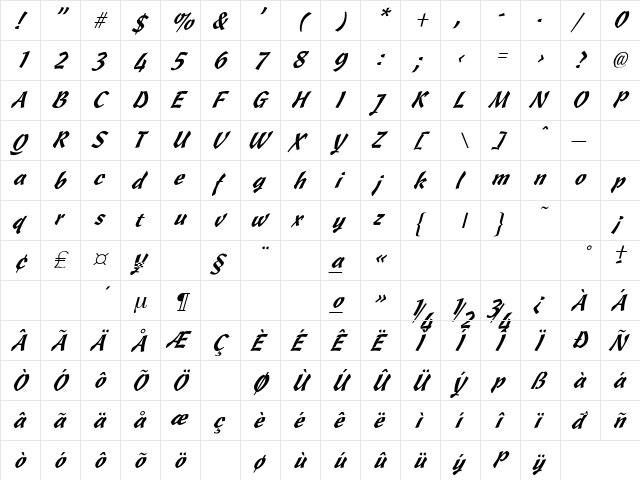
Wizzard Italic
Design Context for Wizzard Typeface
Wizzard is a composed and adaptable typeface that performs quietly and consistently across a wide range of design contexts. The slanted form adds forward momentum and visual energy.
Pro Tip: Try Wizzard for annotation and caption copy alongside an upright companion — the contrast in angle creates a dynamic but ordered typographic system.